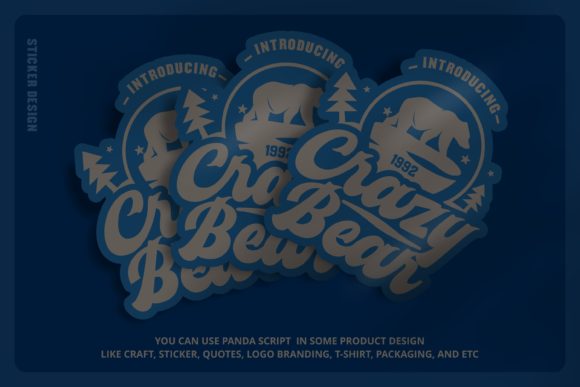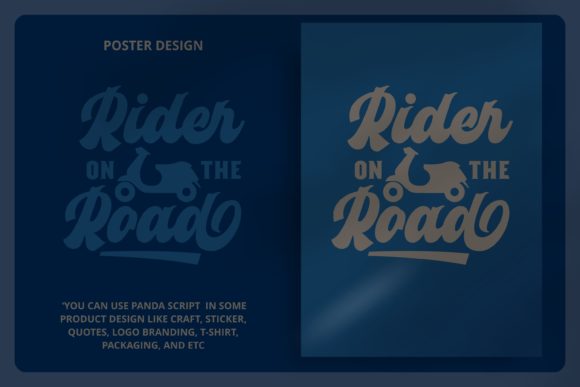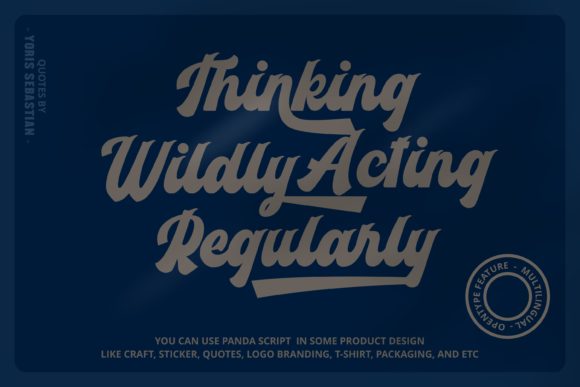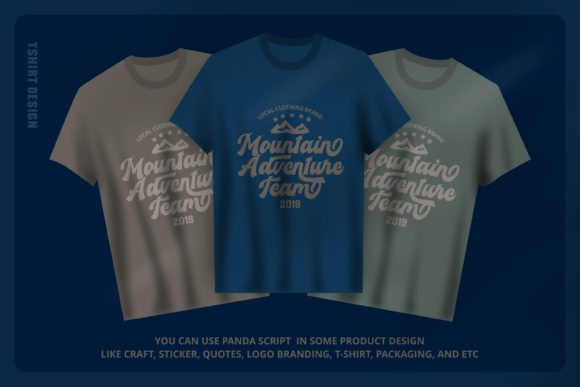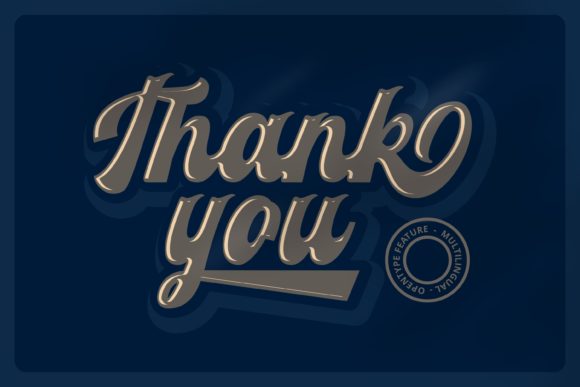
HomeScript FontsPanda Font Script Fonts Panda Font FacebookXPinterestWhatsApp Panda Font Poster 2 Panda Font Poster 3 Panda Font Poster 4 Panda Font Poster 5 Panda Font Poster 6 Panda Font Poster 7 About Panda Font Panda is a boldly rounded script with a vintage feel. Use it to turn any design project into a true stand out! DOWNLOAD NOW People also explored Great Oktober Font Sketch Pocket Notebook Vertical Gatigal Font Deltabrush Font Dashing Florals Font Butterscotch Font Best Font PAG Smoke Balicot Sweet Font 310 0 TagsPanda Font Previous articleMinerals Buble FontNext articleLastwinter Font LEAVE A REPLY Cancel reply Comment: Please enter your comment! Name:* Please enter your name here Email:* You have entered an incorrect email address! Please enter your email address here Website: Save my name, email, and website in this browser for the next time I comment. Personal Use Free Groomer Personal Use Free Read more about this font Hello December Personal Use Free Read more about this font Jellia Personal Use Free Read more about this font Airmole Personal Use Free Read more about this font BLOG How to Cut Any Font on Cricut: Convert a Font to SVG (Free) Turn any font into a clean SVG so it cuts crisp on Cricut - a quick 3-step workflow using a free font-to-SVG tool. Modern Sans-Serif Fonts That Brands Love in 2025 Using Fonts in Digital Marketing: Tips to Strengthen Your Brand Identity Best Fonts for YouTube Videos: Make Your Thumbnails Stand Out